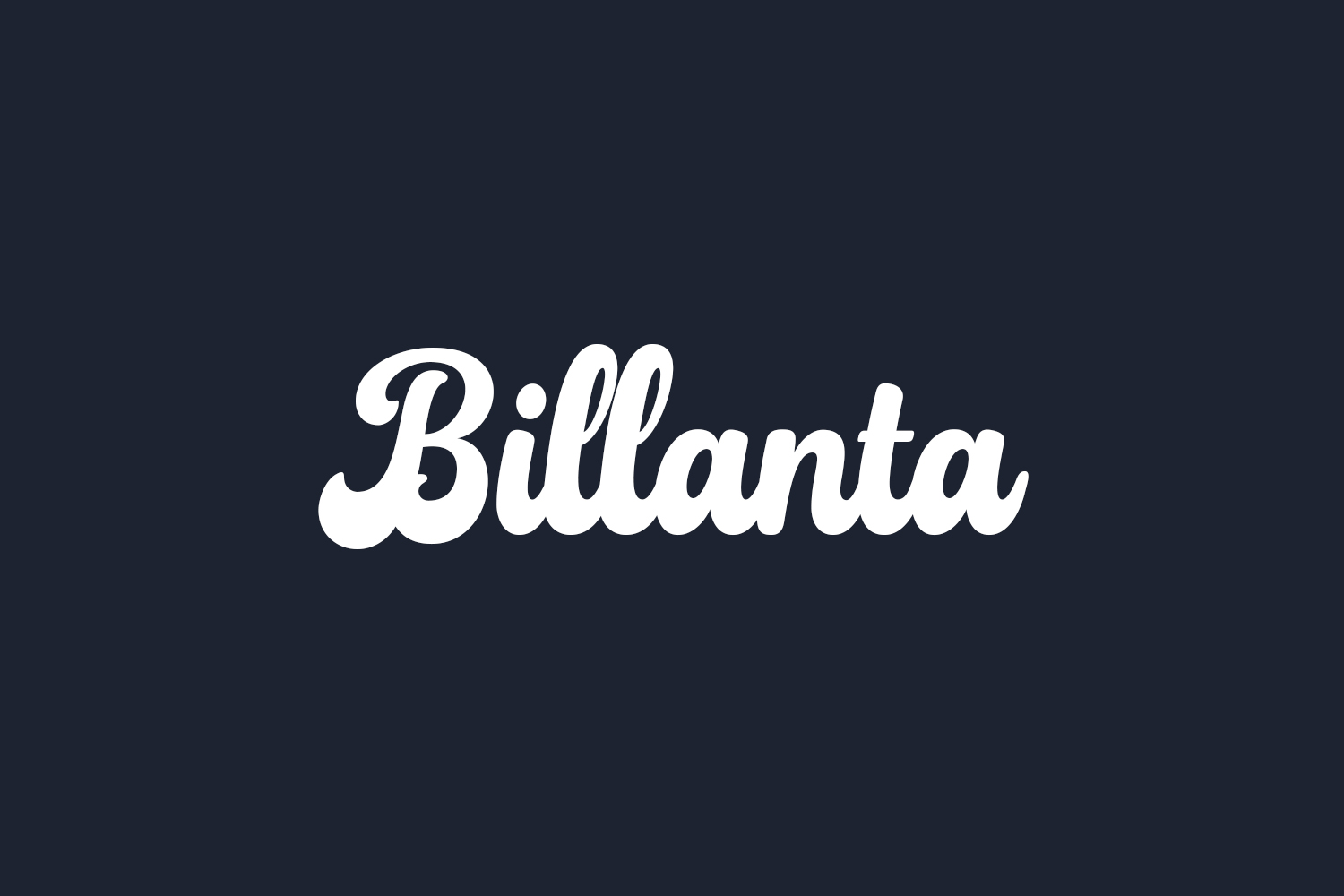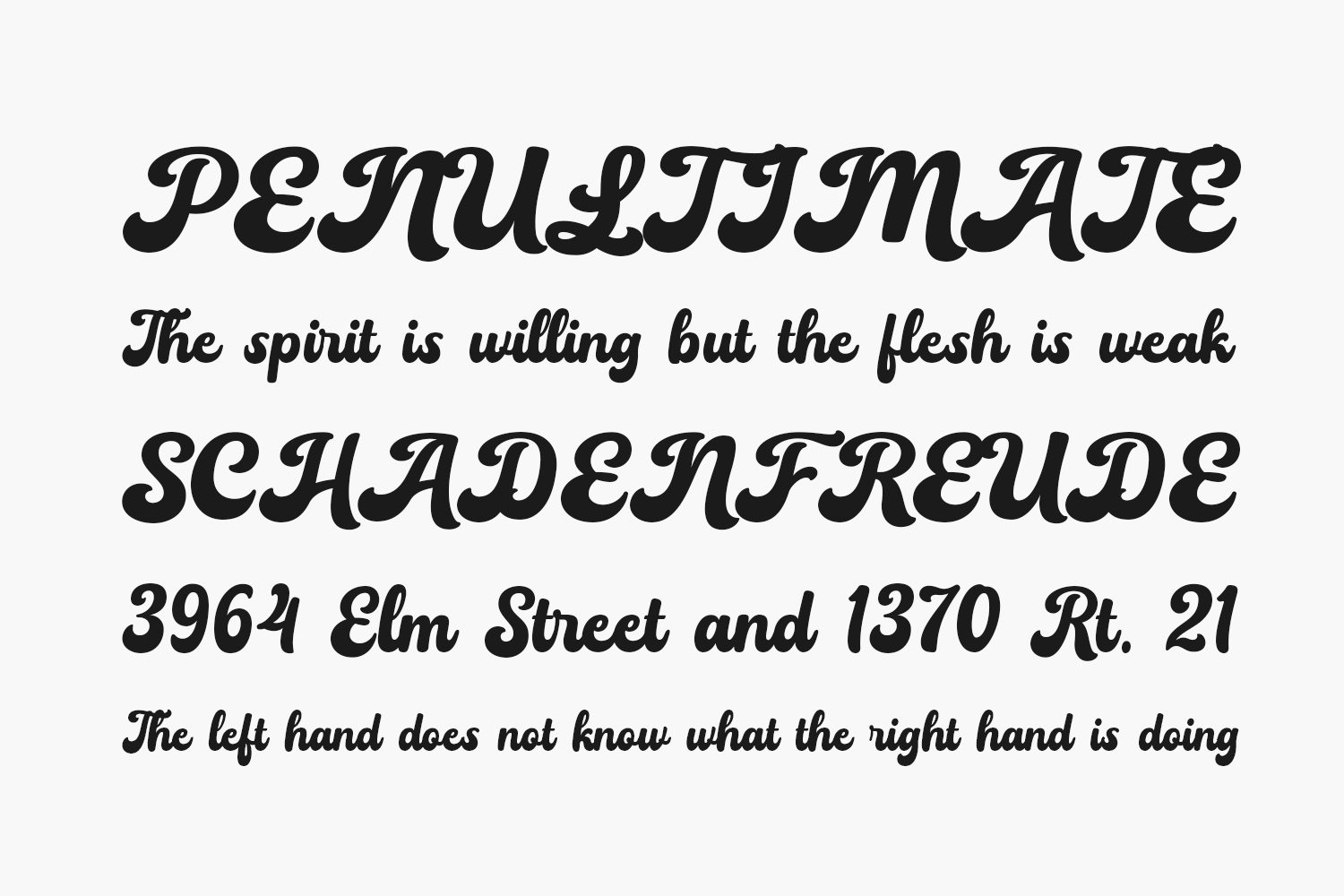
Billanta
Billanta Free Font is a bold, emotional handwriting font that exudes confidence and individuality. Its sweeping strokes and confident lines convey a sense of passion and determination, making it the perfect choice for any project that needs a touch of boldness and personality. The font’s unique, handwritten style adds a touch of authenticity and personalization to any design, making it perfect for anything from invitations and posters to social media posts and websites. With the Billanta Free Font, you can be sure to make a lasting impression.
Designed by Letterhend Studio